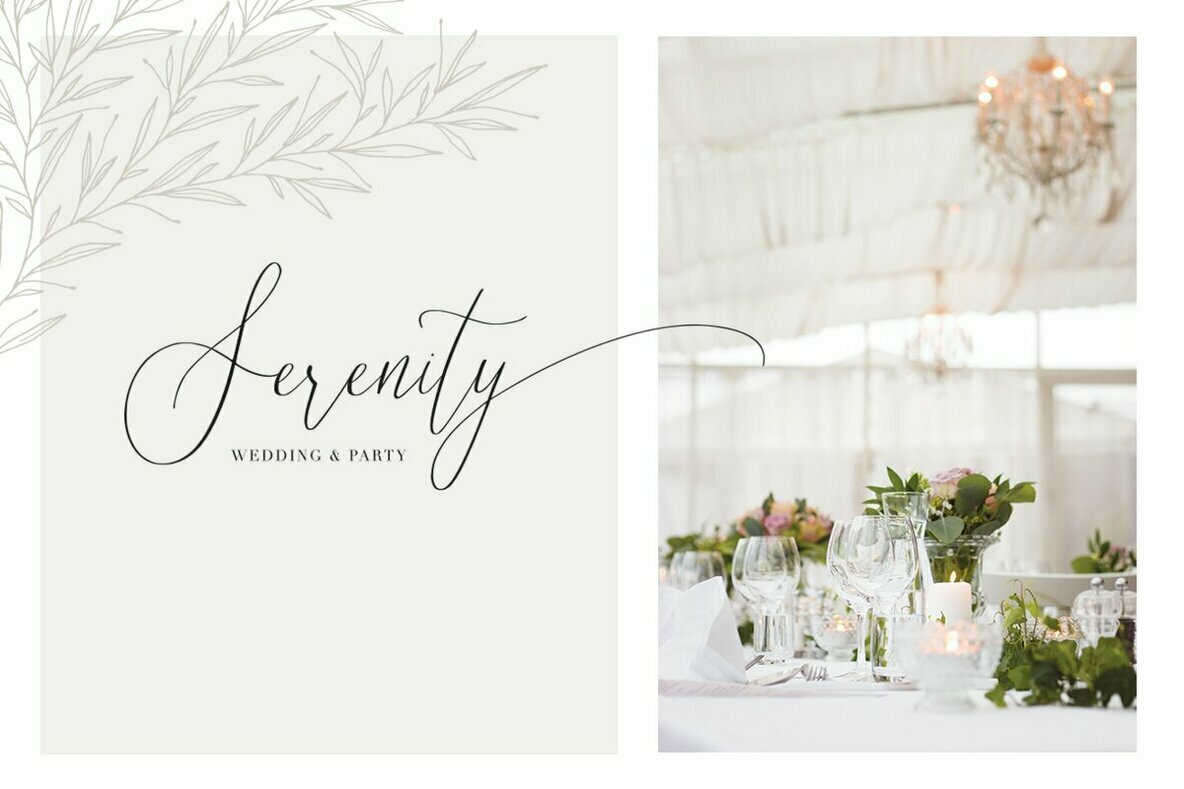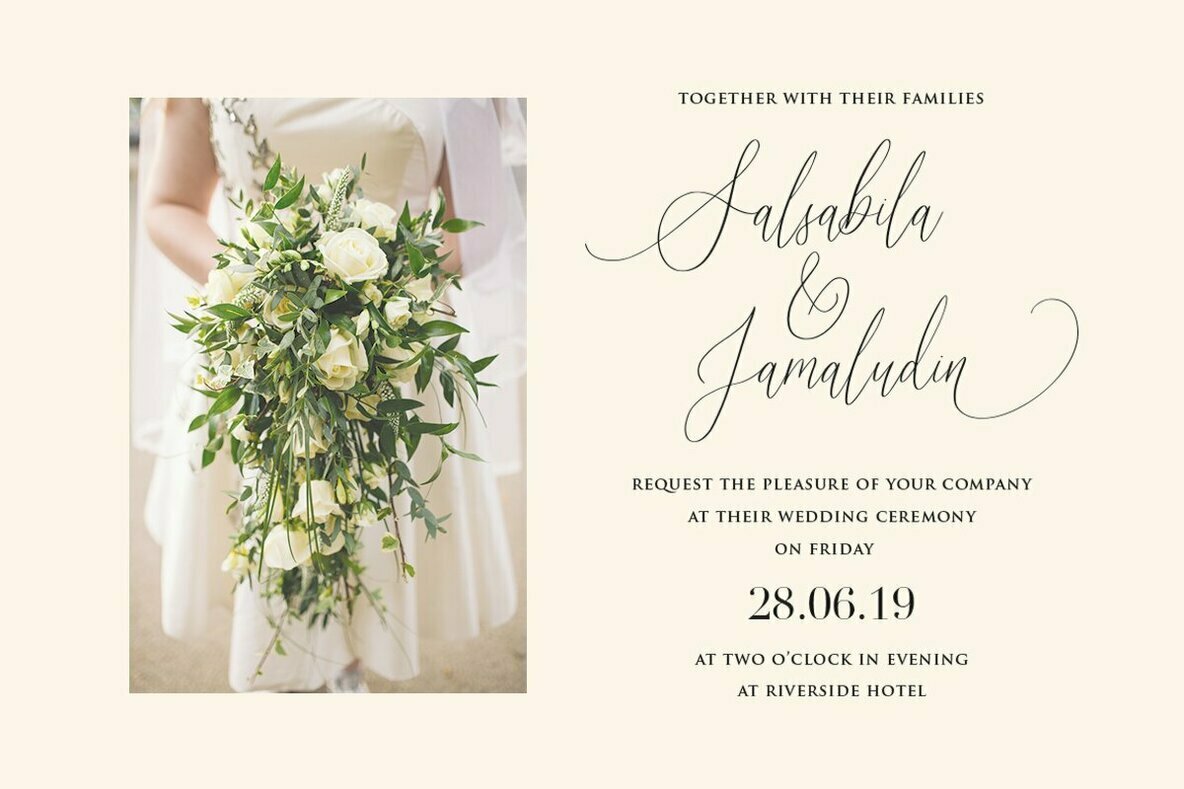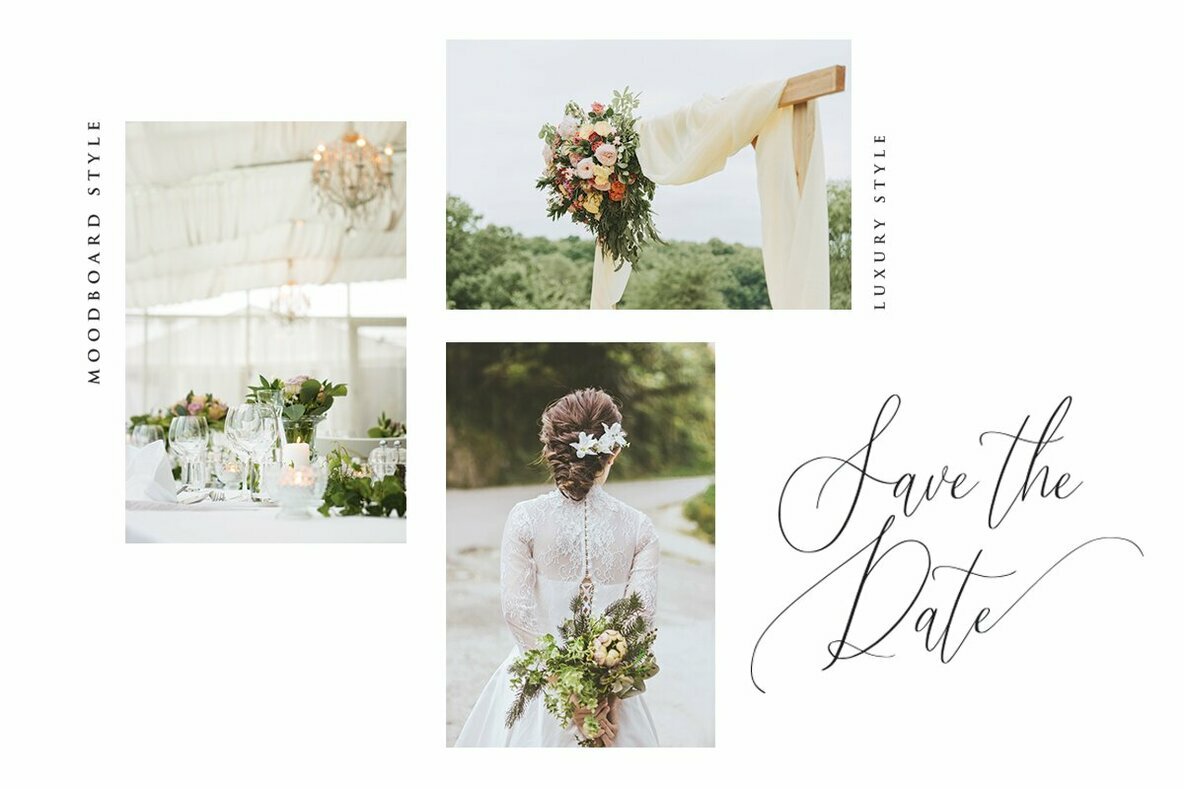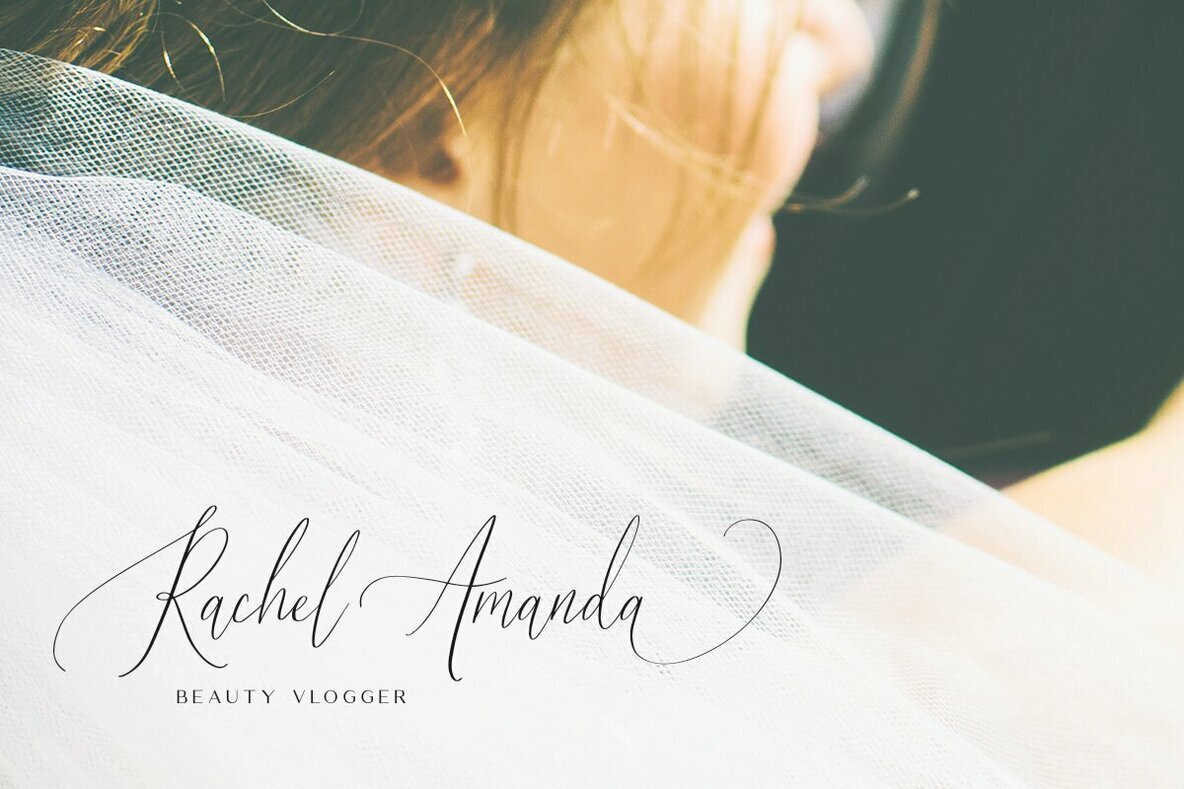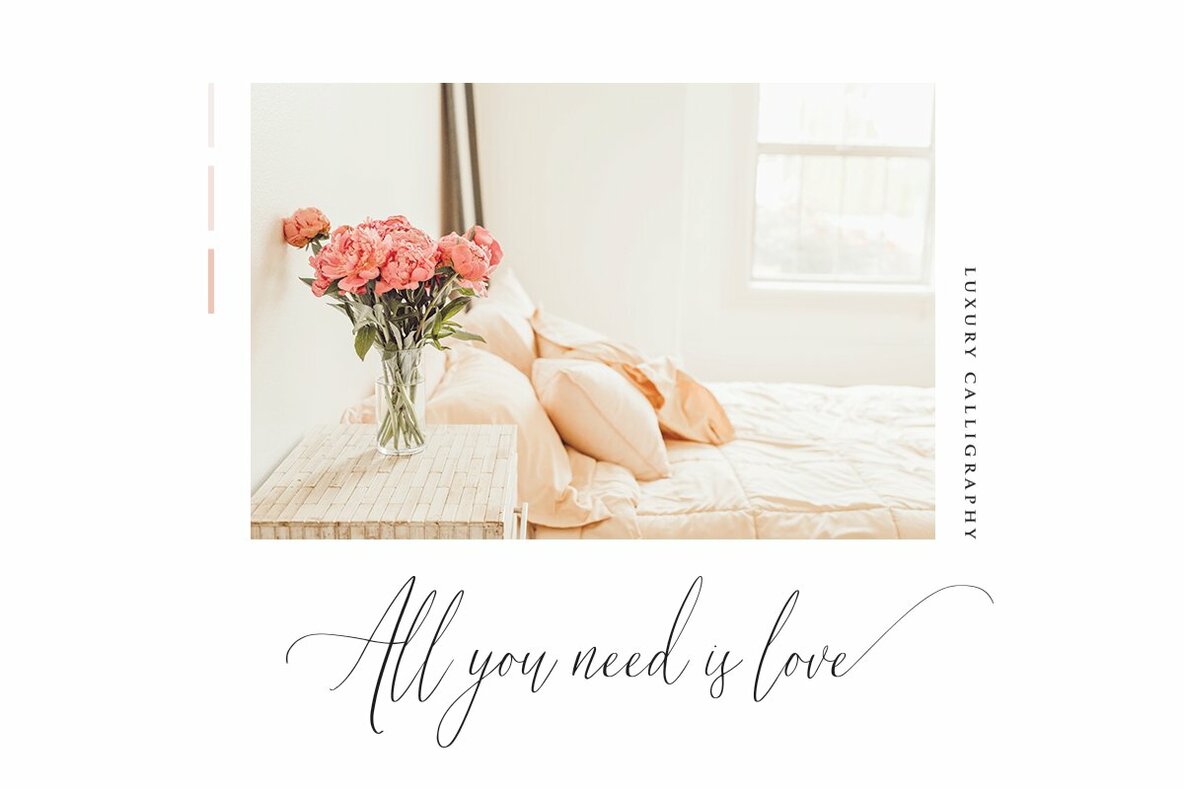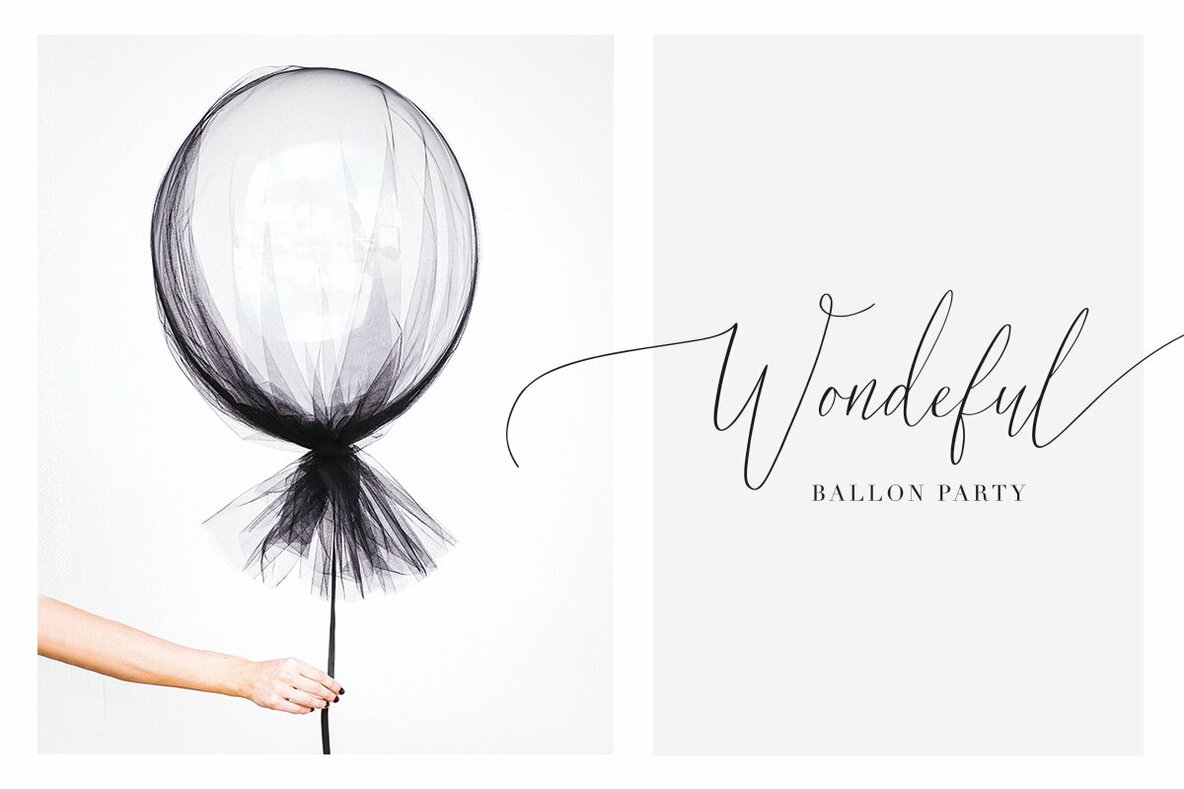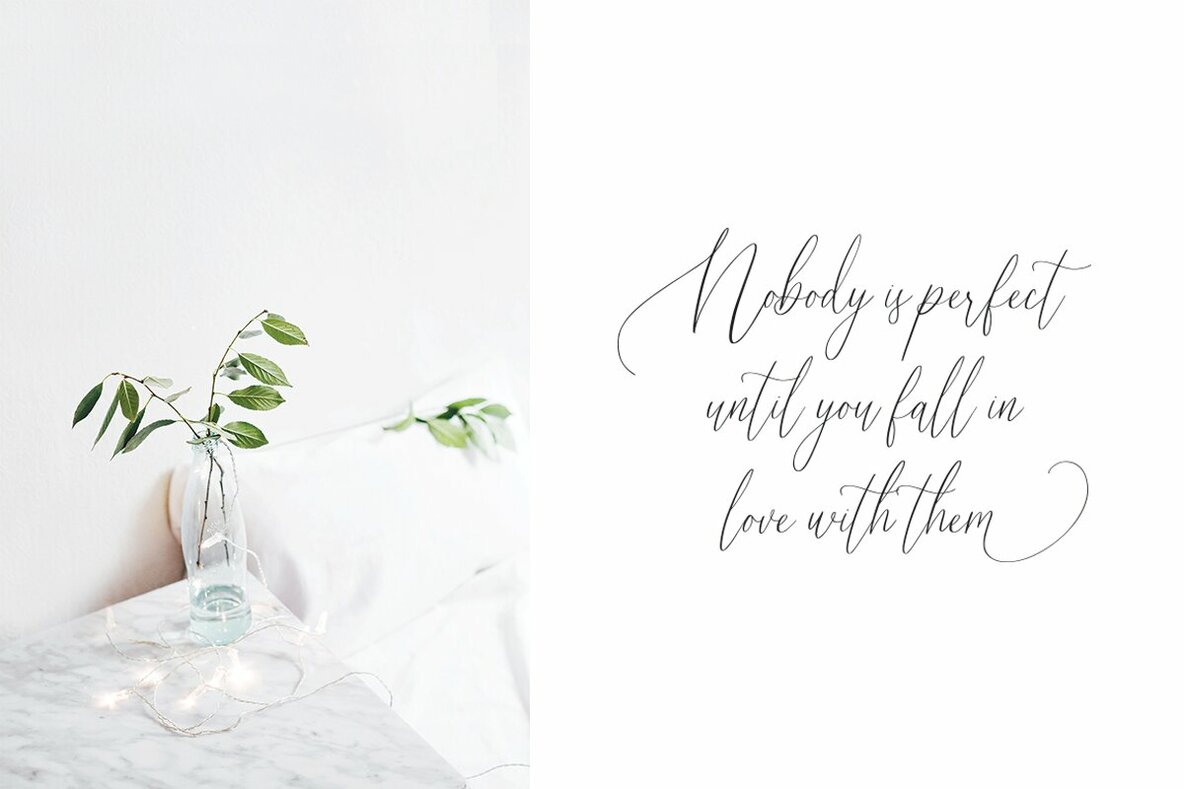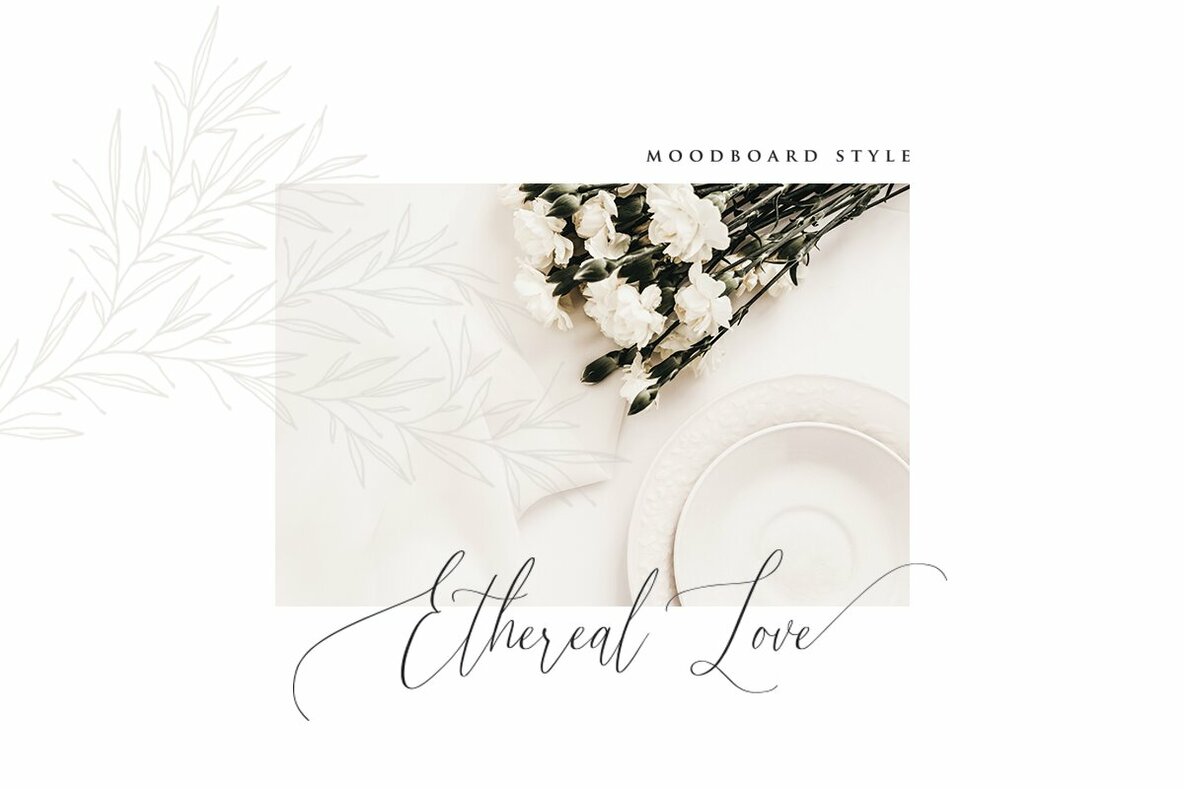
Audrey and Reynold Font
Audrey and Reynold
Enhance your next project with Audrey and Reynold, a contemporary calligraphy font that weaves elegance through every character. Designed to seamlessly complement wedding branding, invitations, and even wine labels, this typeface marries timeless elegance with modern sophistication. Note: Please be aware that the heart symbol depicted on the cover is a modified element and is not part of the font package.Audrey and Reynold: Modern Calligraphy With Sophisticated Flair